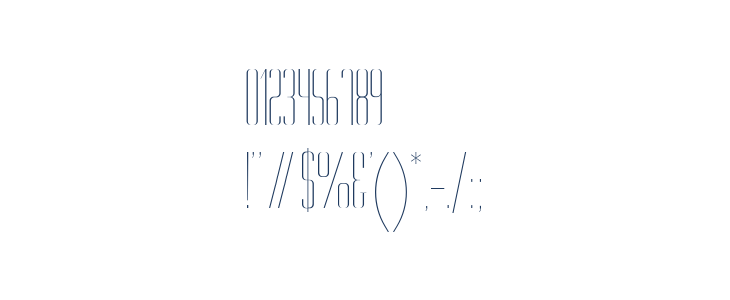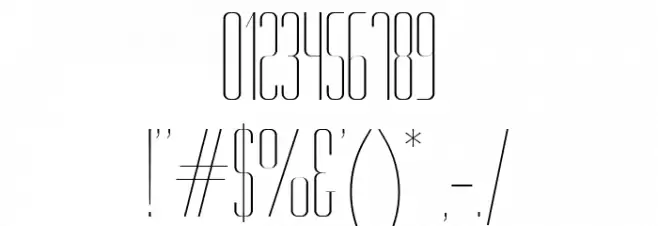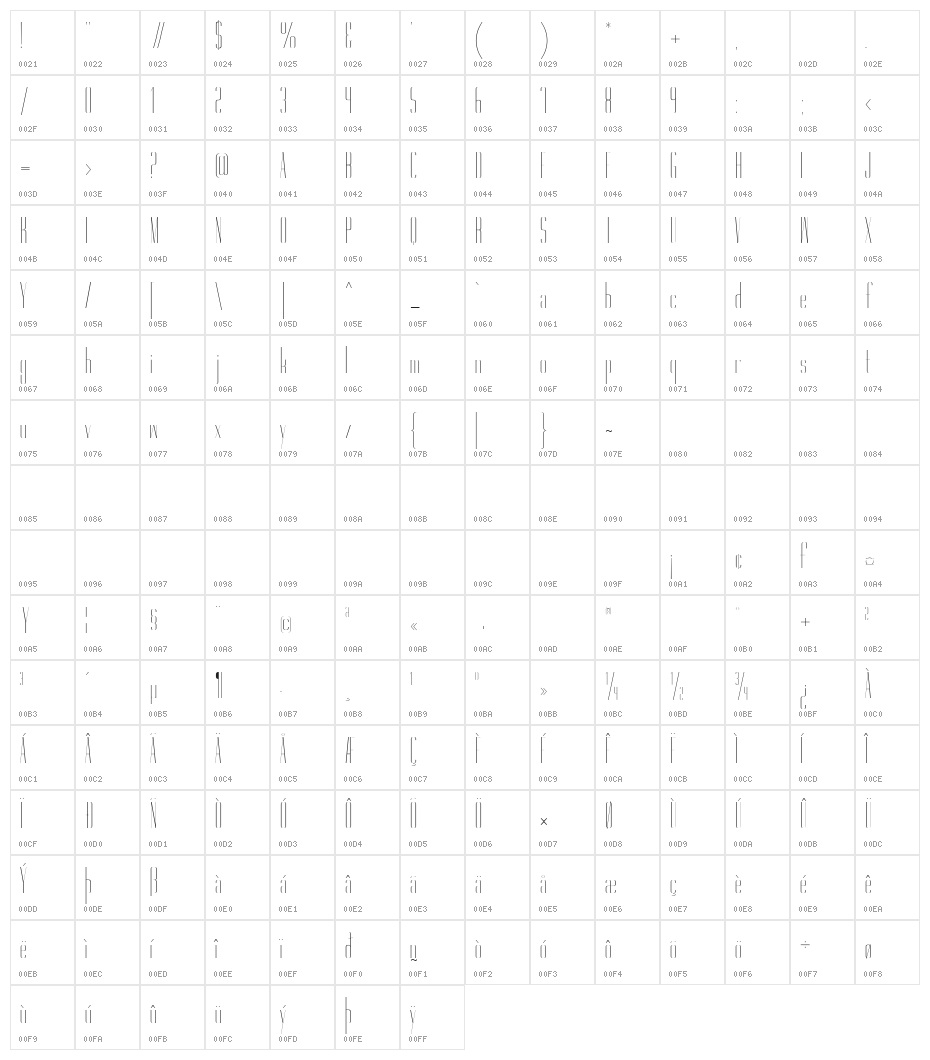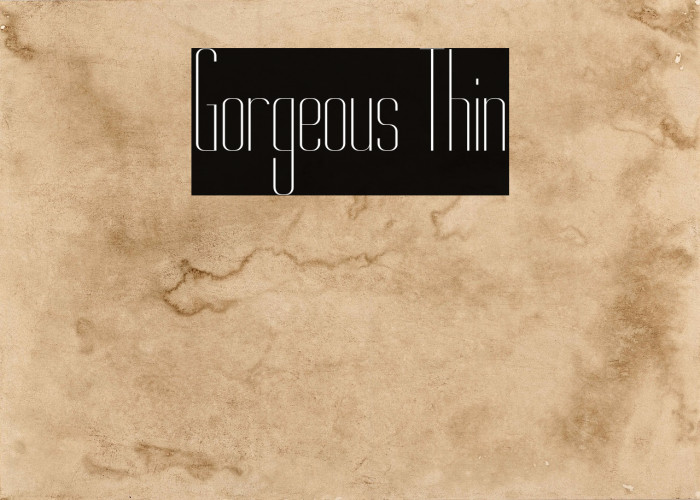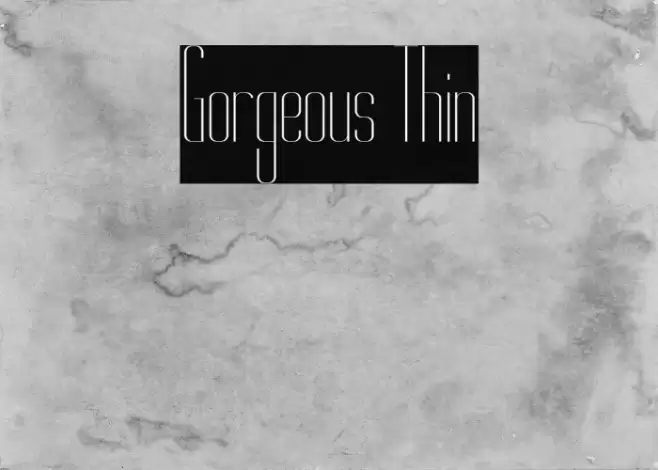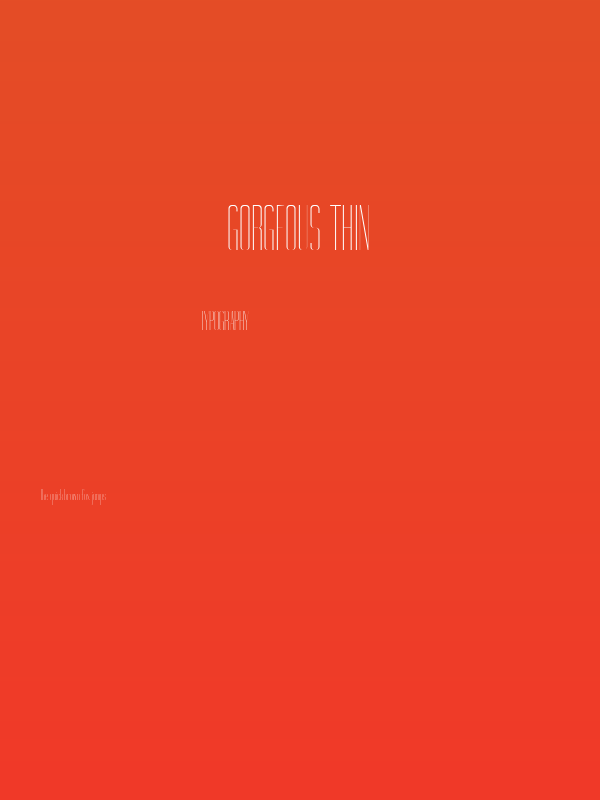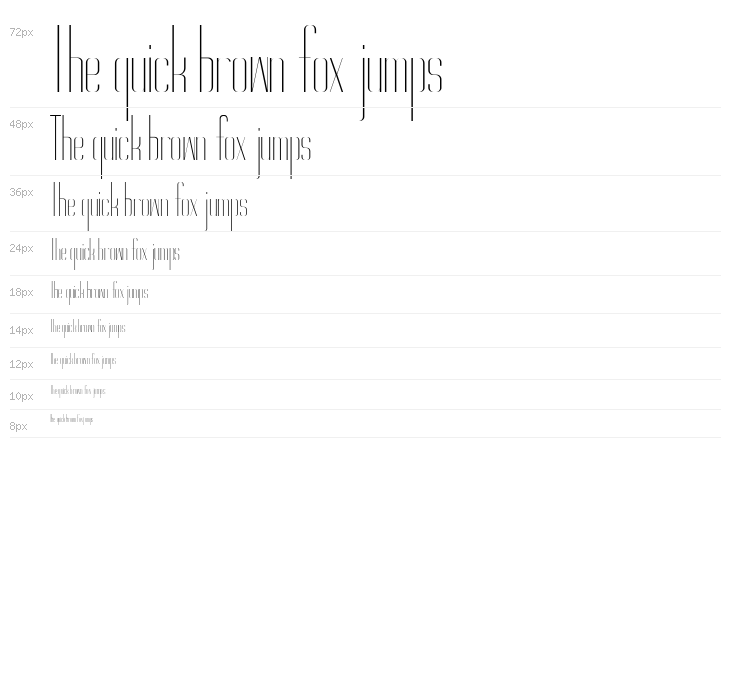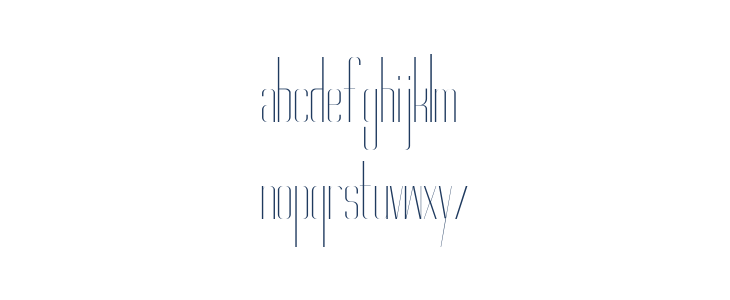
Gorgeous Thin Font
Gorgeous Thin Description
This font features an ultra-thin, elegant design with elongated characters that convey a sense of sophistication and modernity. The uppercase letters are tall and narrow, while the lowercase letters maintain a consistent thinness, creating a harmonious flow. The numerals are similarly slender, contributing to the overall sleek appearance. Special characters are designed with the same attention to detail, ensuring uniformity across all glyphs. The font's minimalistic style makes it suitable for high-end branding and fashion-related projects.
| Use Case | Logos, Headlines, Editorial design |
| Proposed Projects | Ideal for luxury branding, fashion magazines, high-end product packaging, and minimalist design projects. |